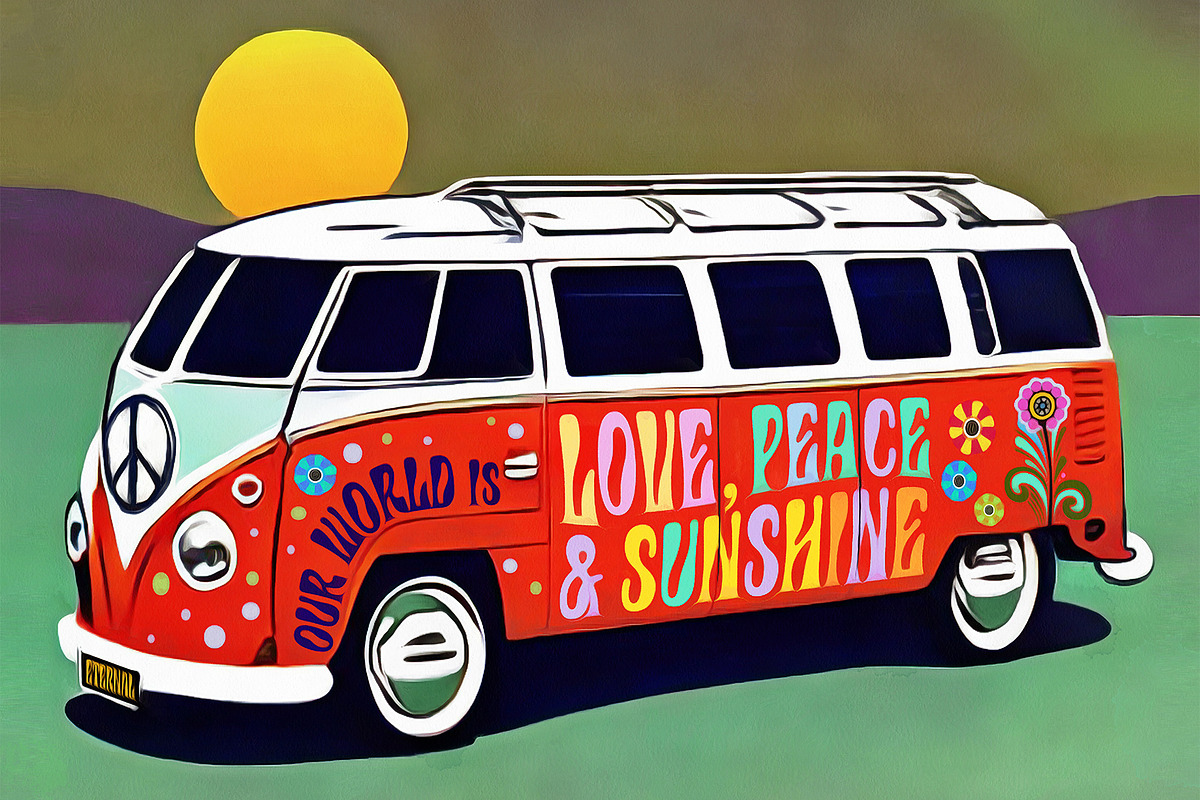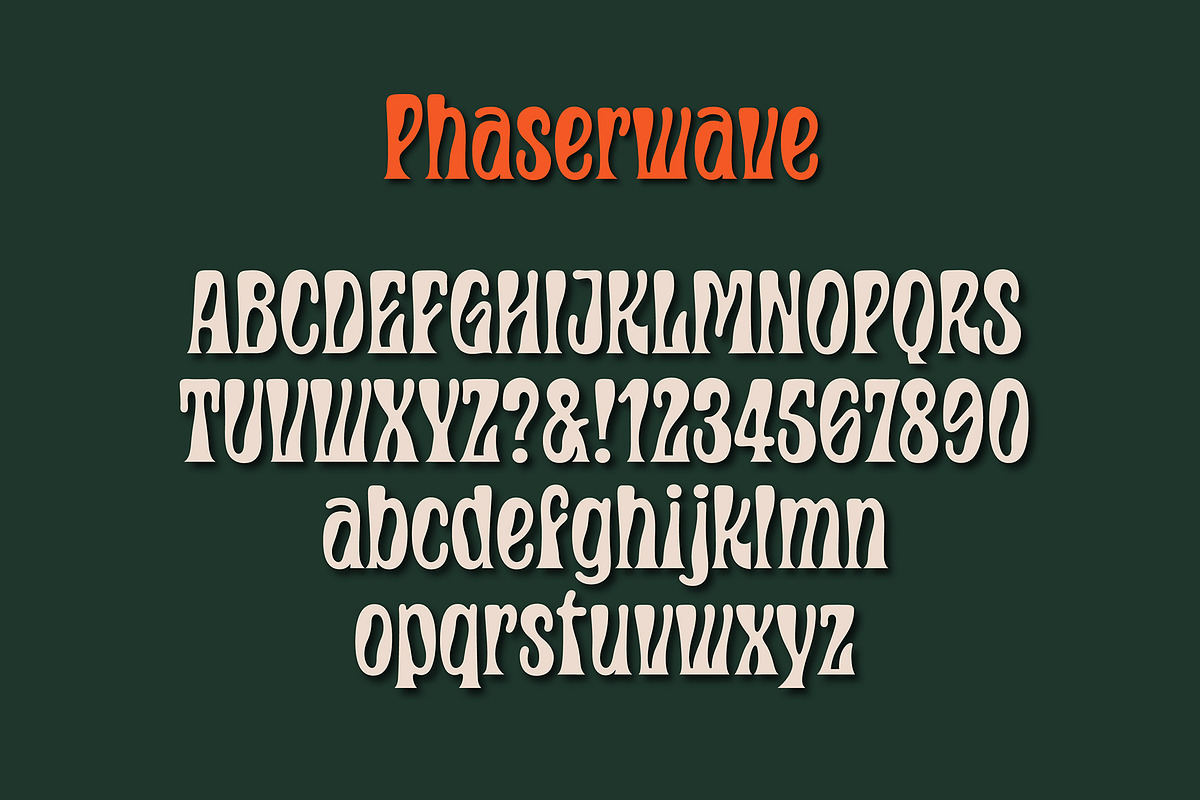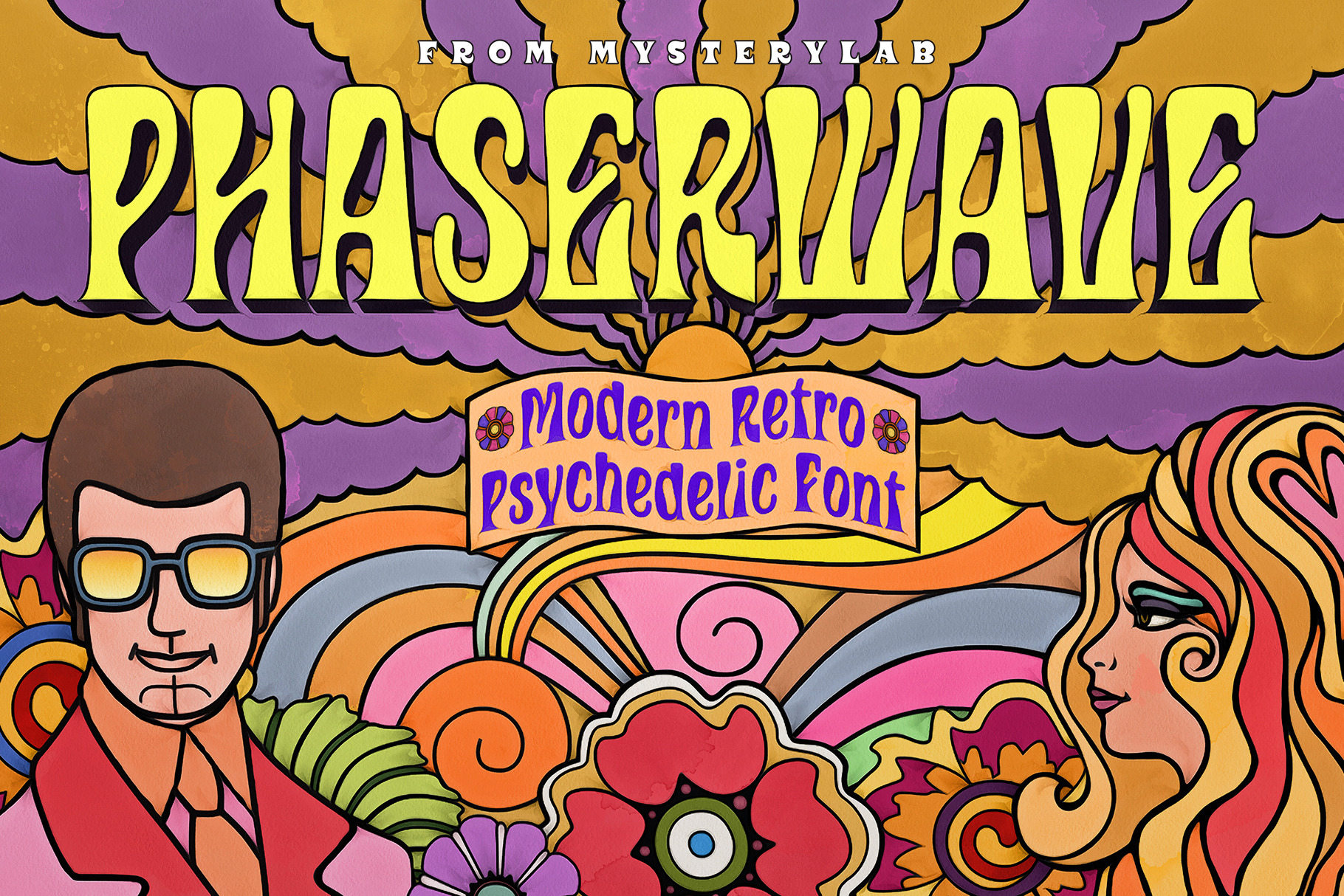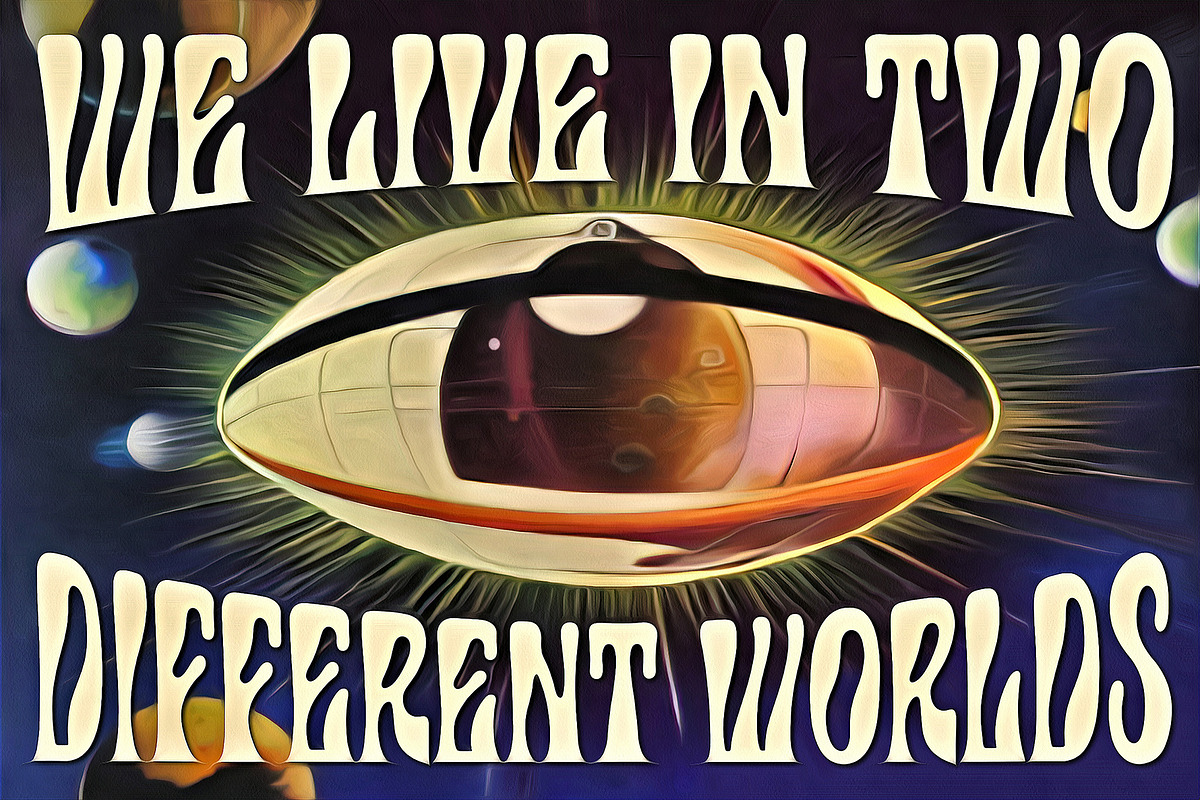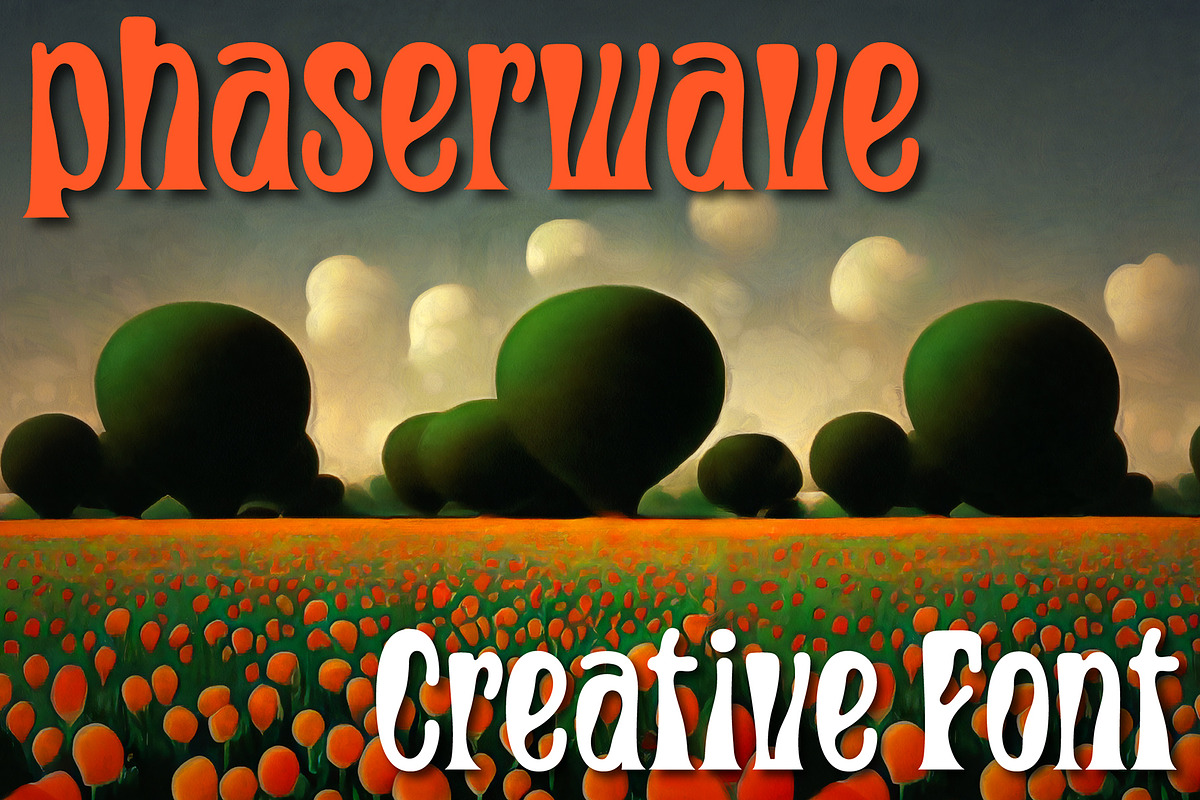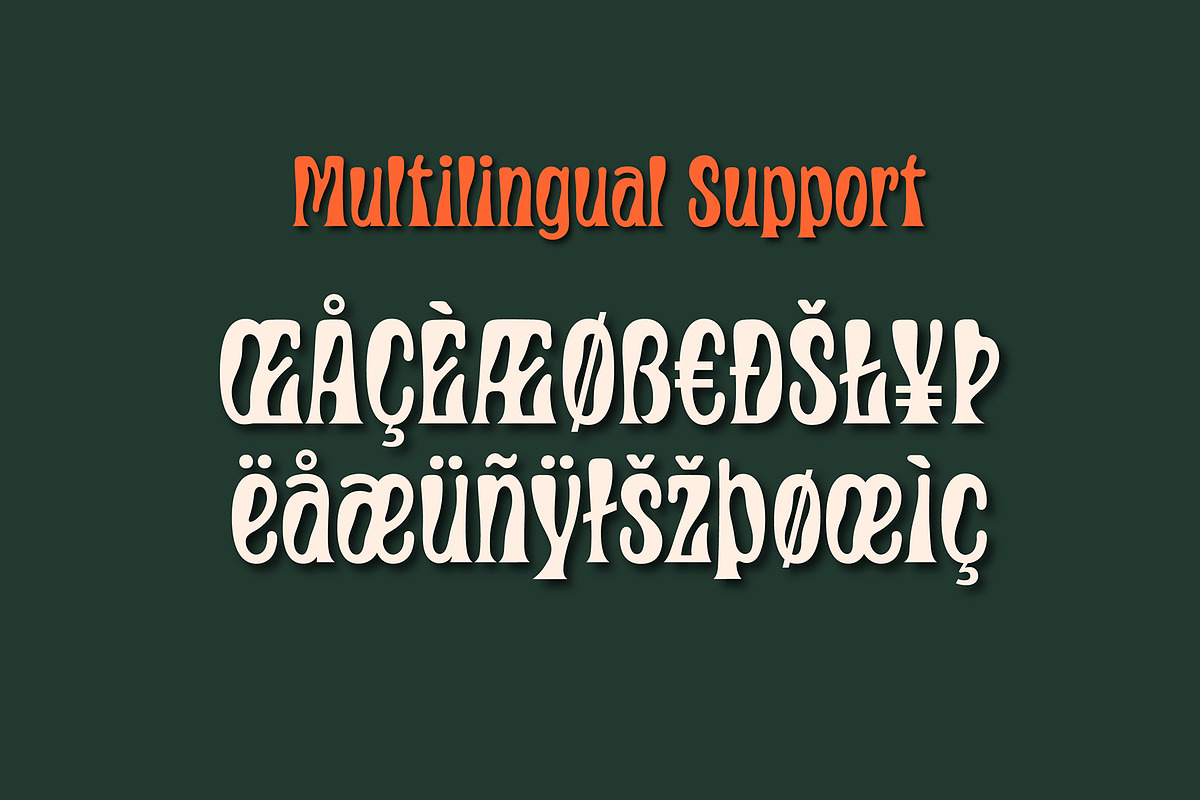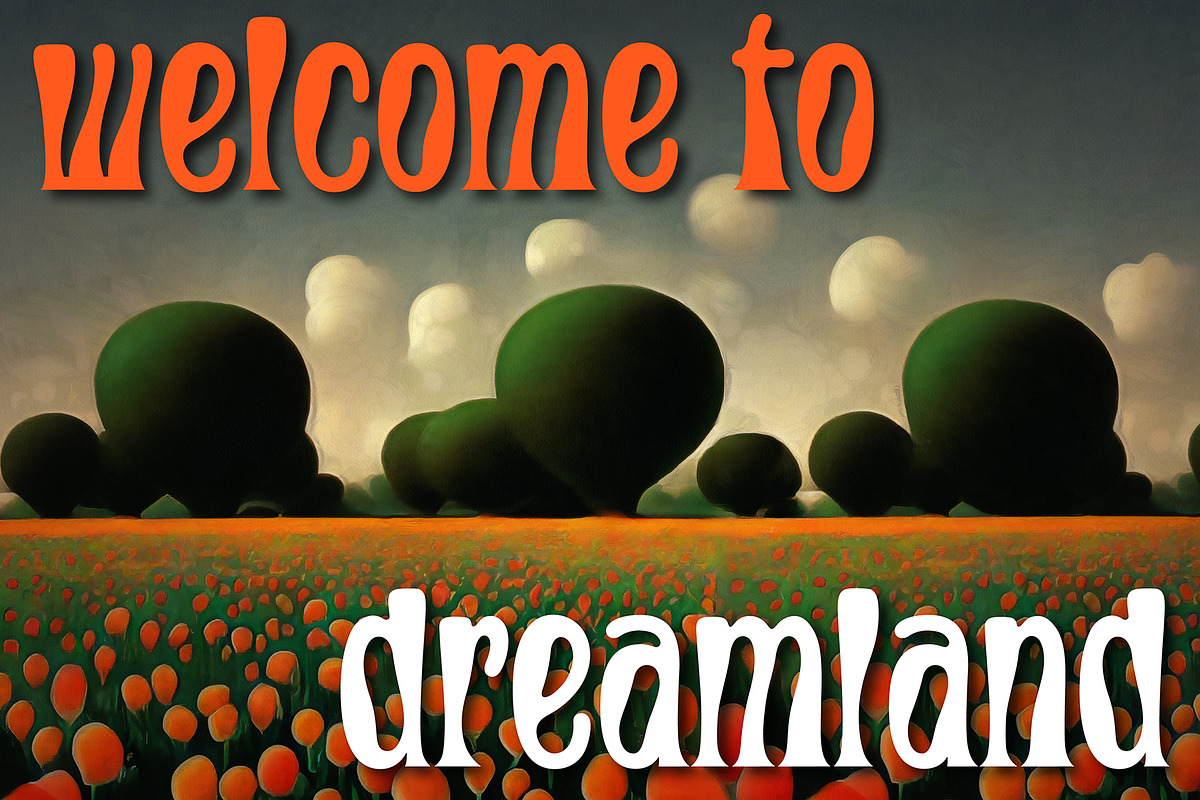
Phaserwave Font
Part of the wave of modern explorations expanding on the 50+ year-old traditions of groovy psychedelic typography, Mysterylab brings you Phaserwave. With an intriguing fusion of pillowy shapes and sharp stroke ends, this font cooks up a heady mélange of whimsical flow and high precision. We've applied our usual meticulous attention to great kerning, extensive character set, and seamless functionality, so this font's ready to rock your designs any way you might want to do it.